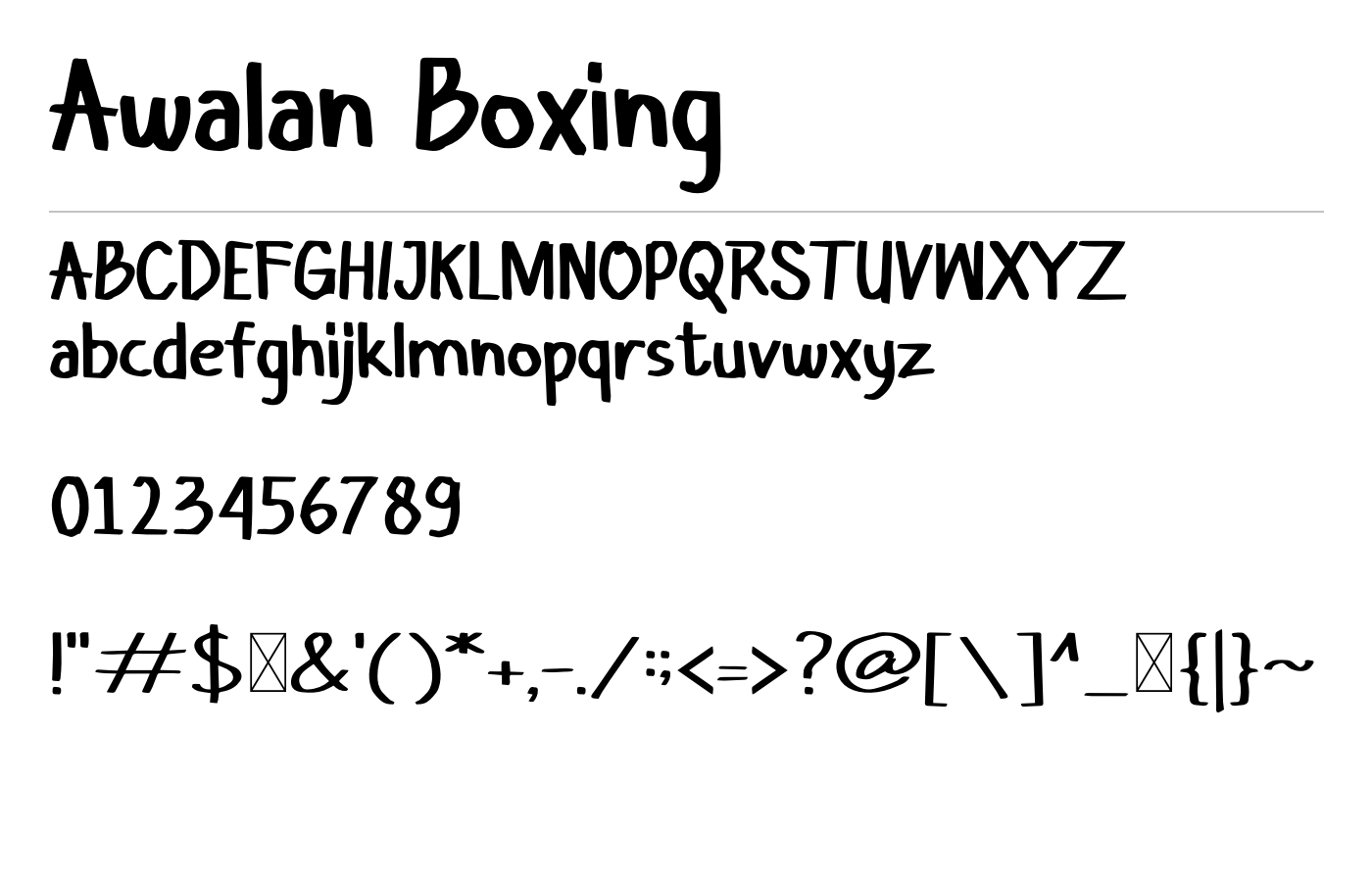
Awalan Boxing is a playful, handwritten sans serif font with a casual and friendly feel. Its slightly irregular shapes and varied stroke widths give it a lively and approachable personality, making it ideal for fun, informal designs like children's books, posters, and creative branding. The font works well for headlines and display purposes where a quirky, energetic vibe is desired.
Awalan Boxing Font
About Awalan Boxing Font
| Font family | Awalan Boxing Font |
| Designer | Rachmad Bagus Fatchi |